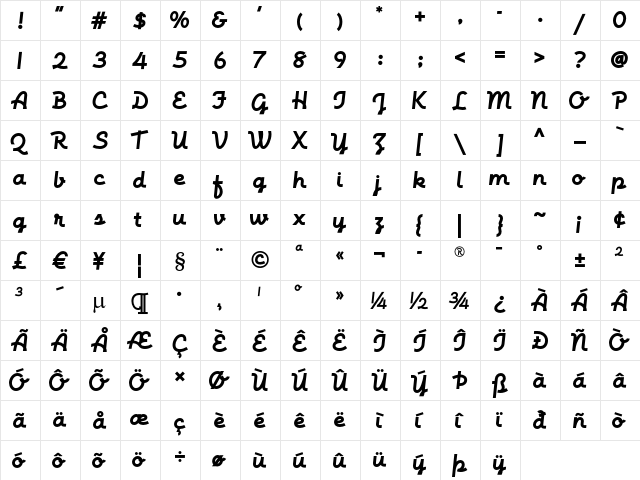
AirstreamNF Bold
Design Context for AirstreamNF Typeface
AirstreamNF is a composed and adaptable typeface that performs quietly and consistently across a wide range of design contexts. Its bold stroke weight gives it real presence on the page.